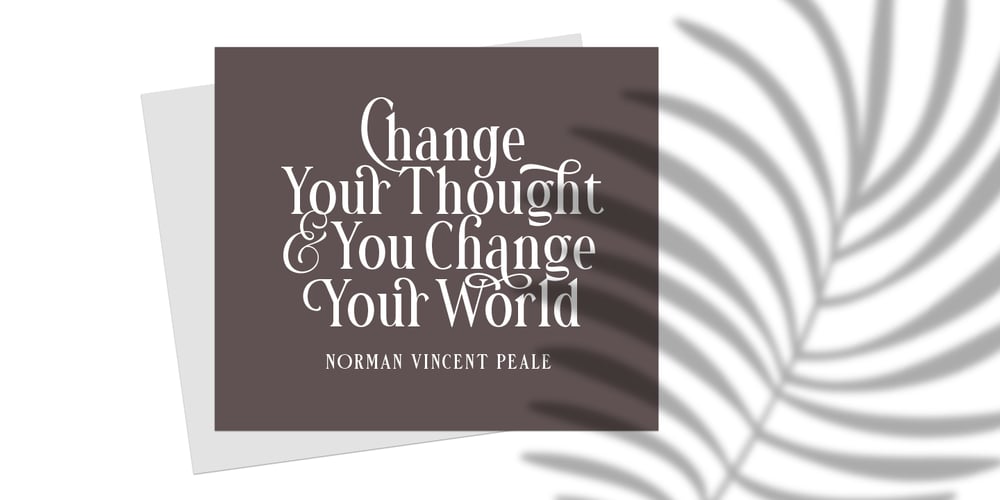
Daniella Evans Font Family was designed by Hendry Juanda, Sarid Ezra and published by Letterhend. Daniella Evans contains 1 styles and family package options. Daniella Evans, a typeface with modern yet classy feel, works perfectly for headline, logotype, apparel, invitation, branding, packaging, advertising etc. This typeface is comes in uppercase, lowercase, with punctuation, symbols, numerals, stylistic set alternate, ligatures, and also multi-lingual support. We hope you enjoy the font! Please feel free to comment if you have any thoughts or feedback. Or simply send me a PM or email me at letterhend@gmail.com